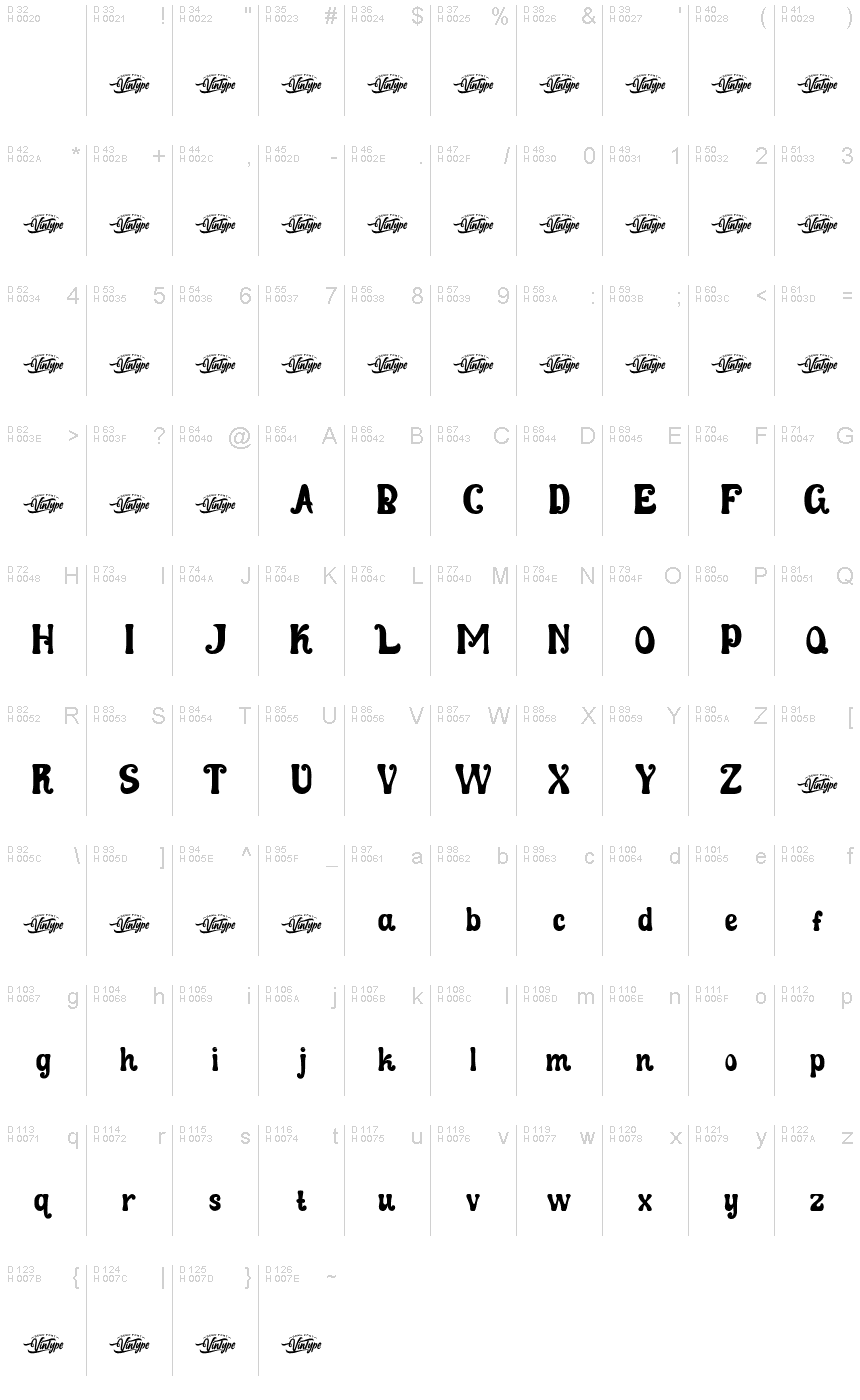
Catie Jack is a groovy and vintage-inspired display font designed by VinType. With its bold weight, it demands attention and adds a touch of retro flair to any project. This font is suitable for a variety of projects including music posters, album covers, vintage-inspired logos, and retro-themed websites. Its unique style and boldness make it perfect for grabbing attention in advertising campaigns or adding personality to social media graphics. Elevate your designs with Catie Jack's bold grooviness!